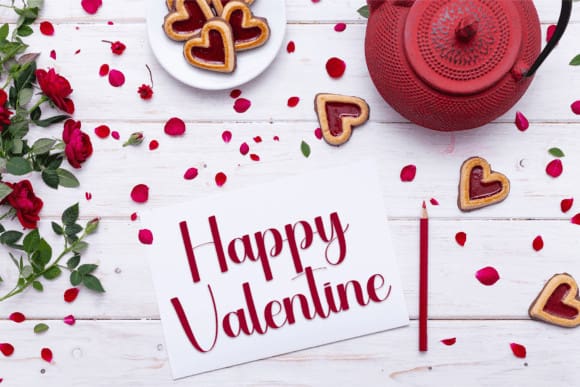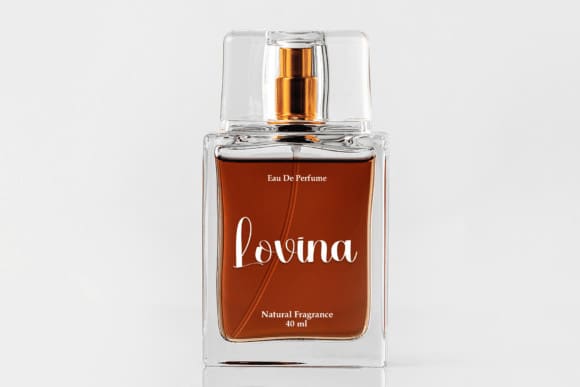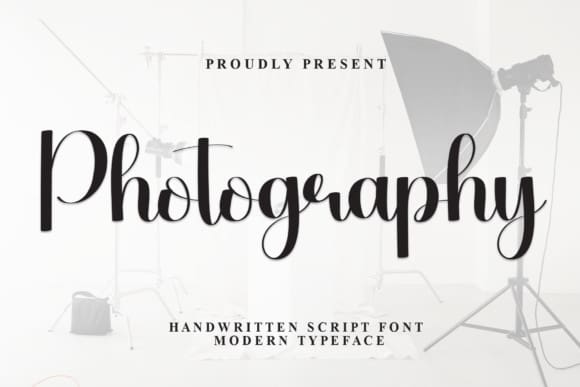
Photography Script Font
Photography Script Font is a charming handwritten script font exuding elegance and grace. Its fluid strokes and gentle curves mimic the movements of a dancer, evoking a sense of beauty and sophistication. Perfect for invitations, greeting cards, and branding projects, this font adds a touch of whimsy and romance to any design.